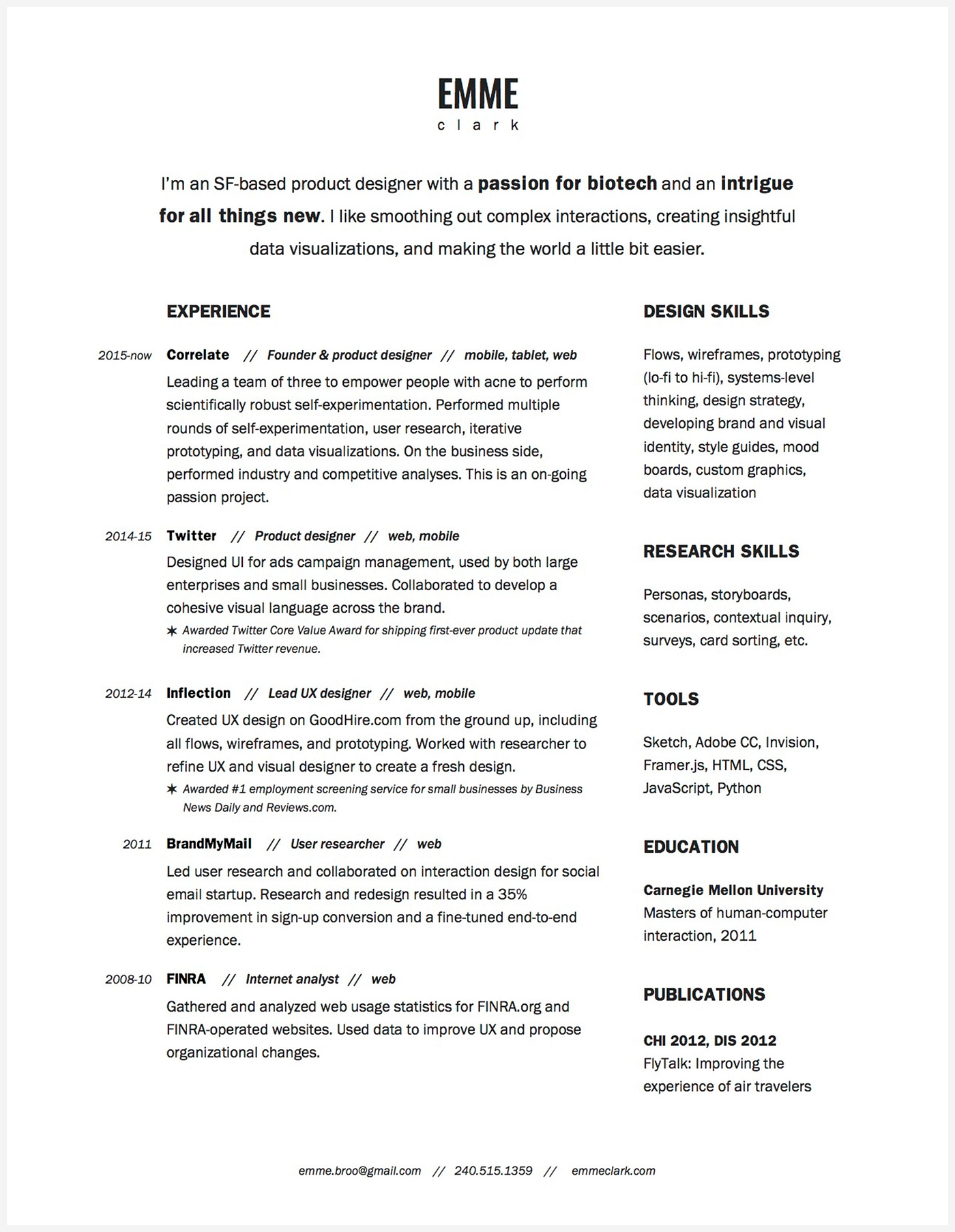
Ensuring the font renders correctly across different devices and browsers
what is a good font for a resume
- Finding the right balance in font size Why are certain fonts considered unprofessional for resumes?
- Suggestions for clean and contemporary sans-serif fonts How does font size affect the perceived professionalism of a resume?
- Reduced readability and potential for misinterpretation
- Clear and legible resume fonts
- Ensuring visual harmony between text and graphics How can I ensure that the font on my resume is professional and appropriate for the specific industry I am targeting?
- Using the same font family throughout and maintaining consistent styling
- Fine-tuning spacing for comfortable reading What are some examples of fonts that are generally considered too decorative or script-like for a professional resume?
- Choosing fonts that aren't too common
- Most well-designed fonts have good default kerning; avoid excessive word spacing
- Focusing on strong content, clear formatting, and strategic use of white space